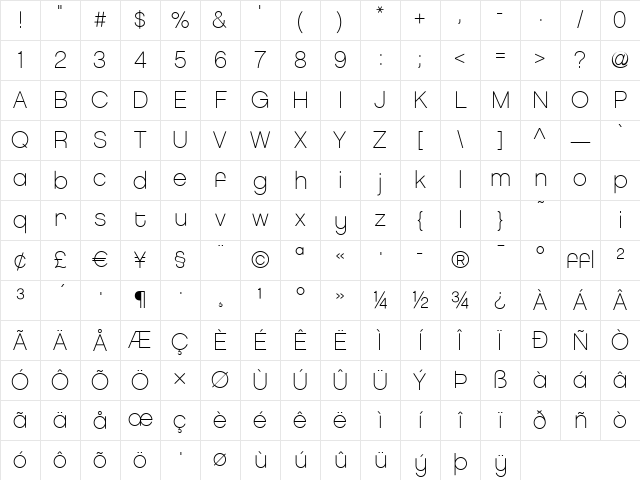
Chalet Medium Free Font
Chalet Medium
Foundry: Chalet (C) House Industries/Brand Design Co. Inc
Complete Chalet Medium glyph index. Displaying only characters natively supported by Chalet Medium font.
Design Context for Chalet
Chalet is a composed and adaptable typeface that performs quietly and consistently across a wide range of design contexts.
Who designed the Chalet Medium font?